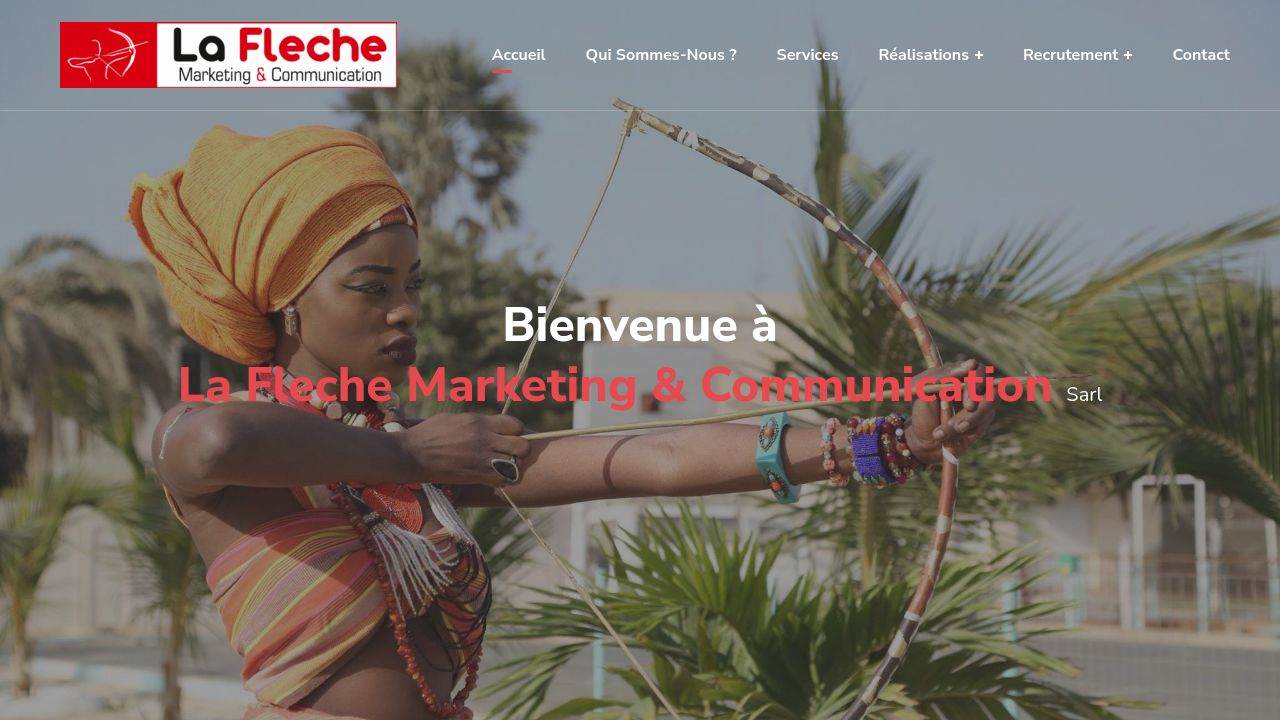
Laflechecom.com uses Nunito Sans, Font Awesome 5 Brands, Roboto, Font Awesome 5 Free and vc_grid_v1 as its main typefaces. Arial, Helvetica and Baskerville are declared as fallbacks. 12 fonts detected, last checked Sep 28, 2026.
La Fleche, a marketing and communication agency, utilizes a diverse range of fonts to convey its identity. The use of Arial and Roboto provides clarity and accessibility, appealing to a broad audience. Nunito Sans, with its varied weights, adds a friendly touch, while Font Awesome icons enhance visual communication. This thoughtful typography reflects La Fleche's commitment to effective client engagement and innovative marketing solutions.
font-family: 'pps-icomoon', sans-serif;These fonts are listed in the CSS as backups. The browser only falls back to them if the main fonts above fail to load.
Used for UI icons rather than readable text - no preview available.
The primary fonts used on laflechecom.com include Arial, Roboto, Nunito Sans, and several Font Awesome variations for icons. These choices support clear communication.
Nunito Sans stands out for its rounded edges and friendly appearance. Compared to other sans-serif fonts, it offers a unique blend of warmth and professionalism, especially in its heavier weights.
If the primary fonts are unavailable, laflechecom.com falls back on Helvetica and Baskerville. These fonts maintain readability and style, ensuring a consistent user experience.
The website employs various weights of Nunito Sans (400, 800) and utilizes Font Awesome icons, all at weight 400. This range allows for effective hierarchy and emphasis in the content.